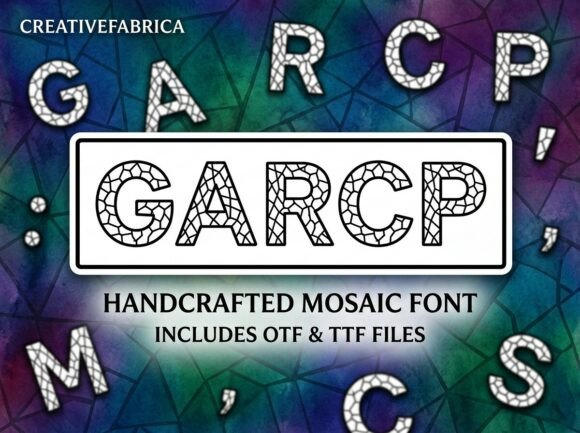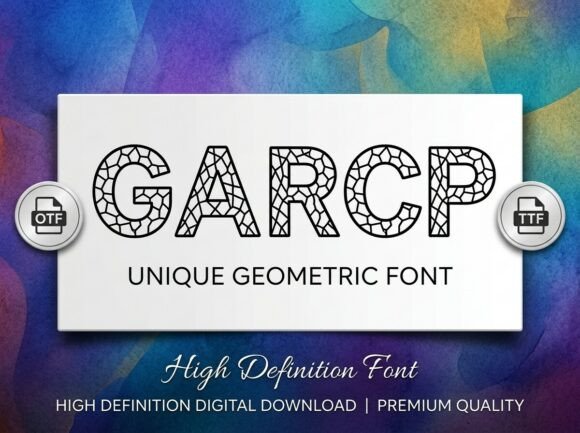
Introducing Garcp Font: The Ultimate Display Font for Creative Minds
Are you tired of using the same old fonts for your designs? Do you want to make a statement with your creative projects? Look no further than Garcp Font, a stunning decorative display font that’s designed to be the center of attention. With its unique artistic elements and strong visual personality, this font is perfect for creators who want to break away from the ordinary and add a touch of elegance to their work.
What Makes Garcp Font So Special?
Garcp Font is a versatile font that’s specifically designed for bold headlines, artistic logos, and creative packaging. Its unique design elements and strong visual personality make it perfect for a wide range of creative projects, from branding and advertising to packaging and editorial design. Whether you’re a graphic designer, a crafty DIY enthusiast, or a marketing professional, Garcp Font is the perfect choice for anyone who wants to add a touch of sophistication and elegance to their work.
Key Features of Garcp Font
- Unique Artistic Elements: Garcp Font features unique artistic elements that set it apart from other fonts. Its intricate design and decorative flourishes make it perfect for adding a touch of elegance to your designs.
- Strong Visual Personality: This font has a strong visual personality that’s sure to grab attention. Its bold and eye-catching design makes it perfect for headlines, logos, and other creative projects.
- Versatile: Garcp Font is versatile enough for use in a wide range of creative projects, from bold headlines and artistic logos to creative packaging and editorial design.
- Professional and Polished Finish: Despite its bold and eye-catching design, Garcp Font maintains a professional and polished finish that’s perfect for high-end designs.
⚠️ IMPORTANT NOTE BEFORE PURCHASE: Garcp Font is an ALL-CAPS (Uppercase Only) display typeface. It does not include lowercase letters. It is specifically designed for high-impact headlines, logos, and decorative initials where every letter is a work of art.
Why Choose Garcp Font?
There are many reasons why Garcp Font is the perfect choice for creative professionals and DIY enthusiasts. Here are just a few:
- Add a Touch of Elegance: Garcp Font adds a touch of elegance and sophistication to any design project.
- Stand Out from the Crowd: With its unique artistic elements and strong visual personality, Garcp Font is sure to help your designs stand out from the crowd.
- Perfect for Branding and Advertising: Garcp Font is perfect for branding and advertising projects, where bold and eye-catching headlines and logos are essential.
Tips for Using Garcp Font
Here are a few tips for using Garcp Font in your design projects:
- Use it for Headlines and Logos: Garcp Font is perfect for headlines and logos, where its bold and eye-catching design can really make an impact.
- Experiment with Different Colors: Garcp Font looks great in a wide range of colors, so don’t be afraid to experiment and find the perfect color for your design.
- Pair it with Other Fonts: Garcp Font can be paired with other fonts to create a unique and eye-catching design.
In conclusion, Garcp Font is a stunning decorative display font that’s perfect for creative professionals and DIY enthusiasts who want to add a touch of elegance and sophistication to their design projects. With its unique artistic elements, strong visual personality, and versatility, Garcp Font is the perfect choice for anyone who wants to break away from the ordinary and create something truly special.